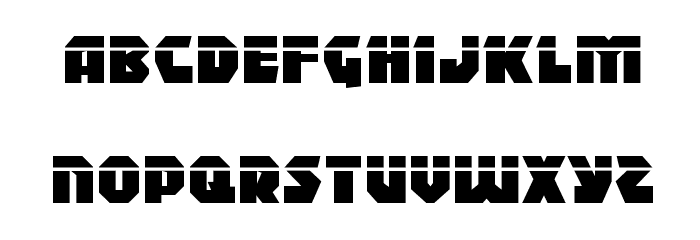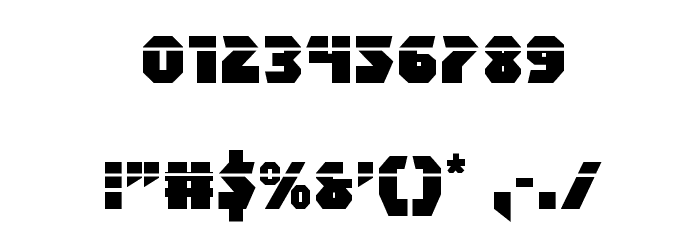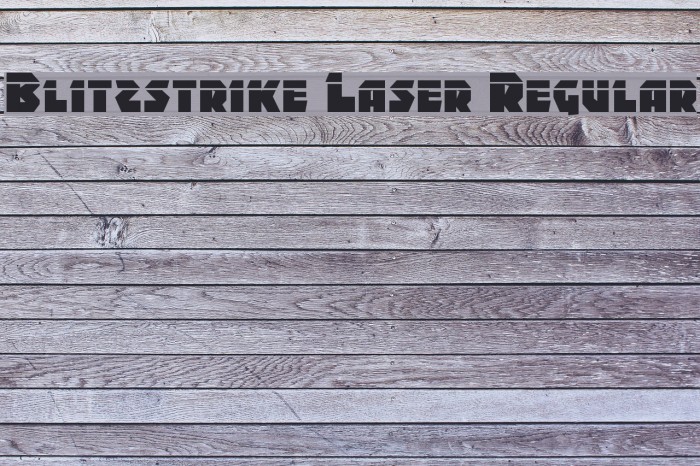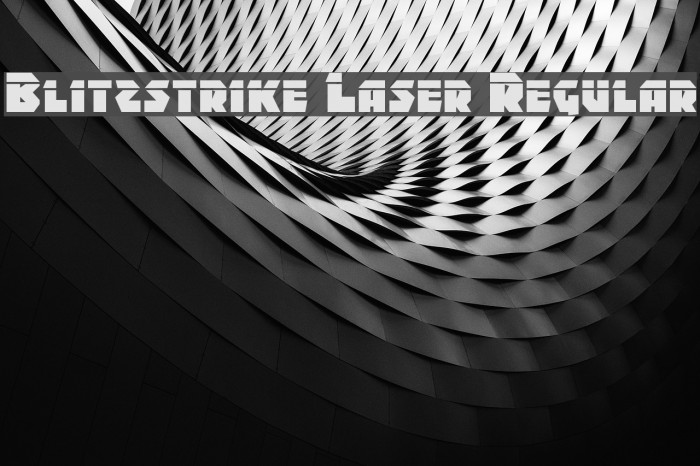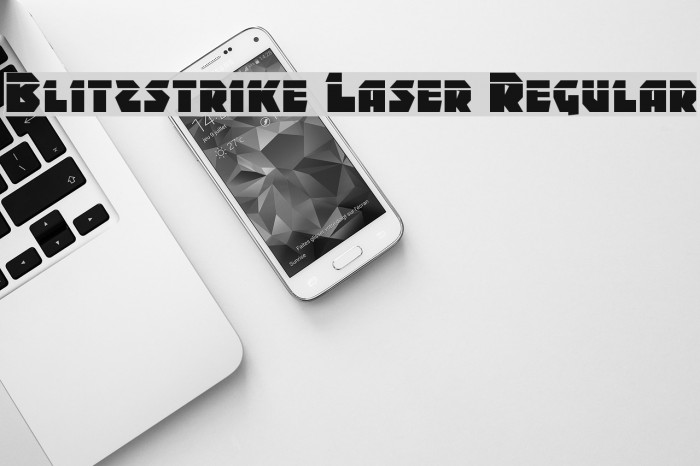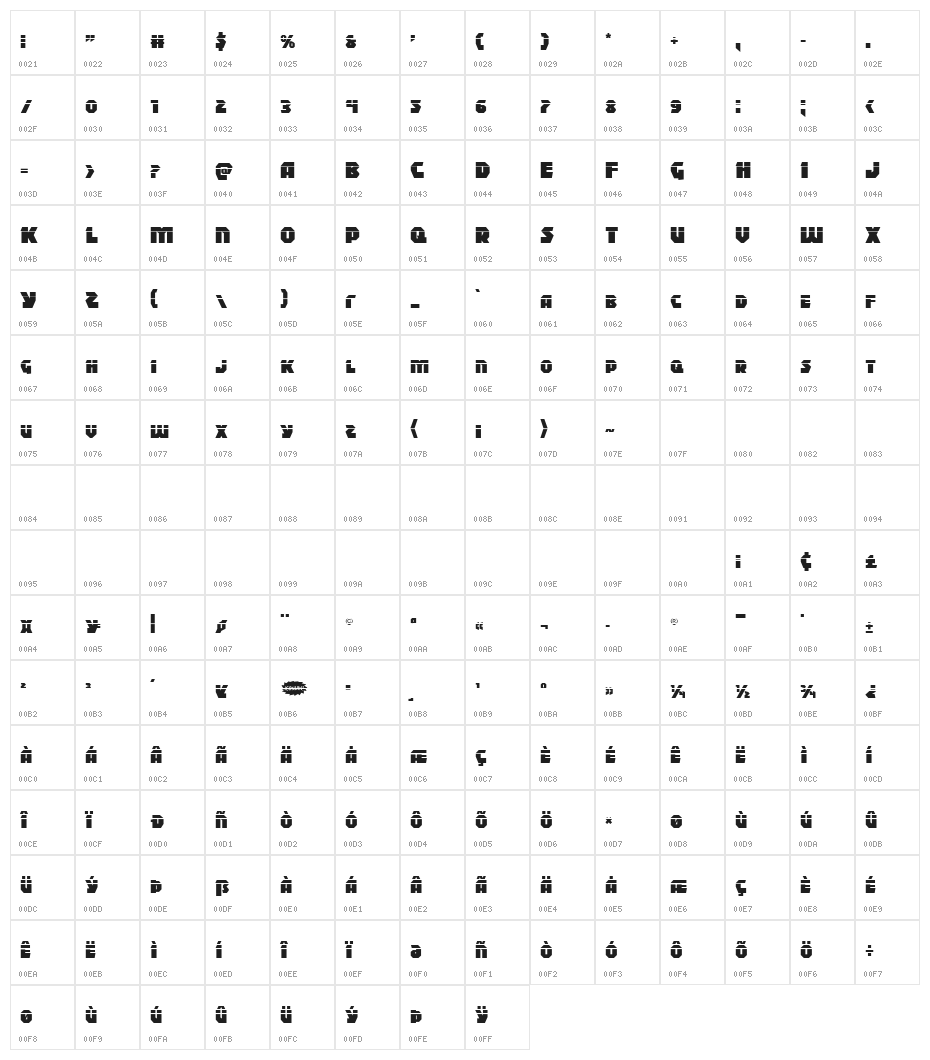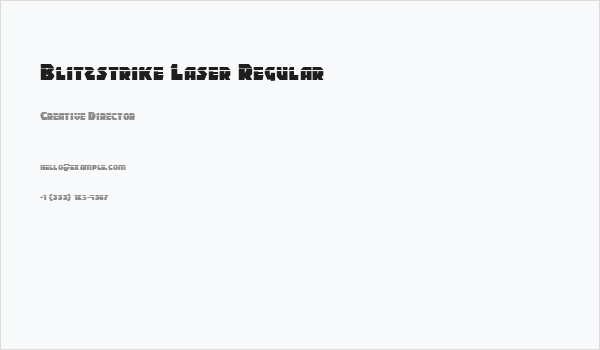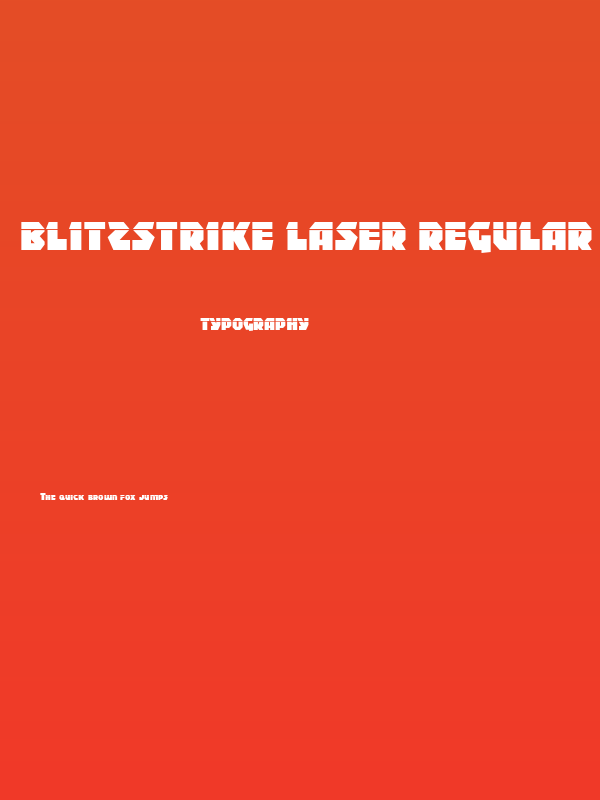
Blitzstrike Laser Regular Font
This font features a bold, futuristic design with sharp, angular lines and a geometric structure. The characters are crafted with a distinct blocky appearance, giving them a strong and impactful presence. The uppercase and lowercase letters maintain a consistent style, with each character exhibiting a unique cut-out pattern that adds to the font's dynamic aesthetic. The numbers and special characters follow the same design principles, ensuring a cohesive look across all elements. This font is ideal for projects that require a modern and edgy feel, such as technology-related branding or sci-fi themed designs.
A bold, futuristic font with sharp, angular lines and a geometric structure.
- Font: Blitzstrike Laser Regular
- Proposed Projects: Ideal for technology branding, sci-fi themes, video game titles, and futuristic posters.